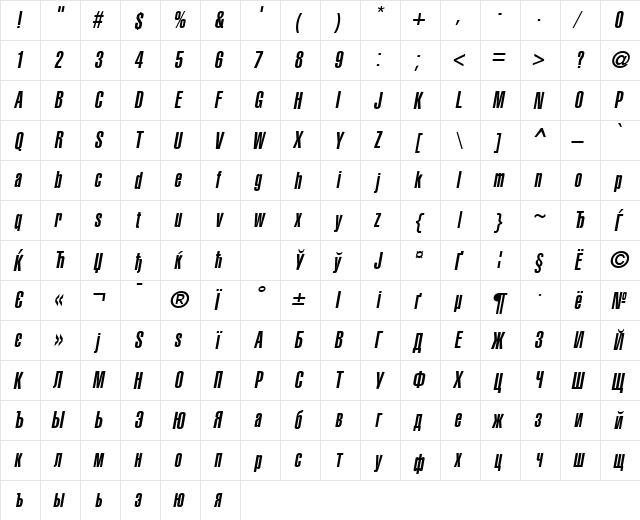
AGLettericaUltraCompressed Oblique
Design Context for AGLettericaUltraCompressed Typeface
AGLettericaUltraCompressed is a composed and adaptable typeface that performs quietly and consistently across a wide range of design contexts. The dynamic lean of this cut emphasises speed and emphasis in any layout.
Pro Tip: Use AGLettericaUltraCompressed for emphasis, pull quotes, and subheadings where its slanted energy can add rhythm to the layout.